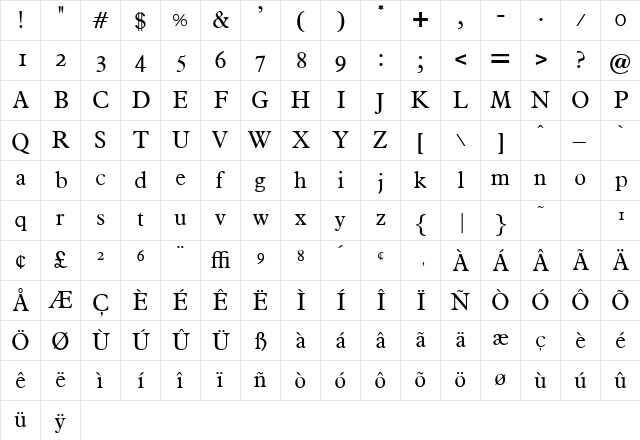
Plastone Regular
Design Context for Plastone Typeface
Plastone takes a measured approach to typography — its balanced proportions and neutral character make it a reliable workhorse for both digital and print work.